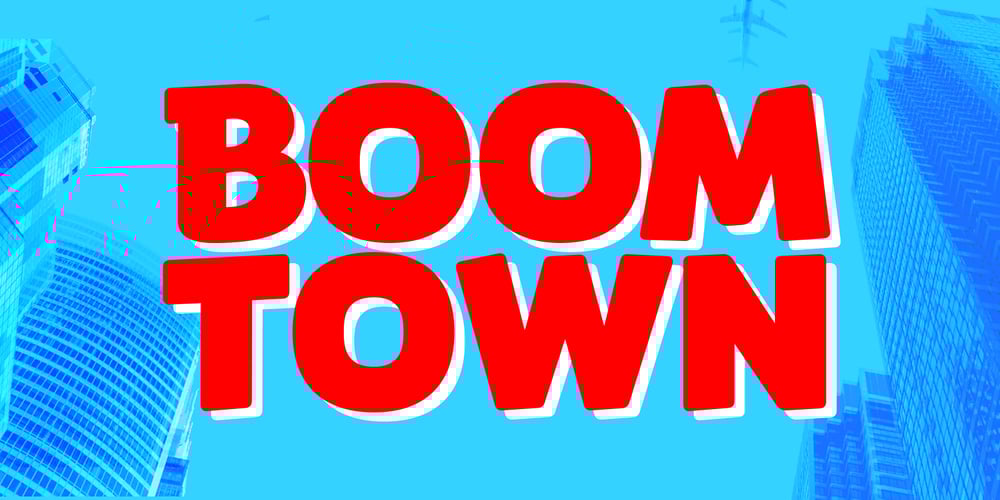
Boomtown
Boomtown font
Boomtown Font Family was designed by Wolfram Pleger and published by PleasureFonts. Boomtown contains 4 styles and family package options. Boomtown is a bold, slightly cursive font for advertising, headlines, packaging design, signposts or posters. Although it is highly constructed, it has some handwriting attributes, too. An italic font is in my planning and maybe a light style, too.